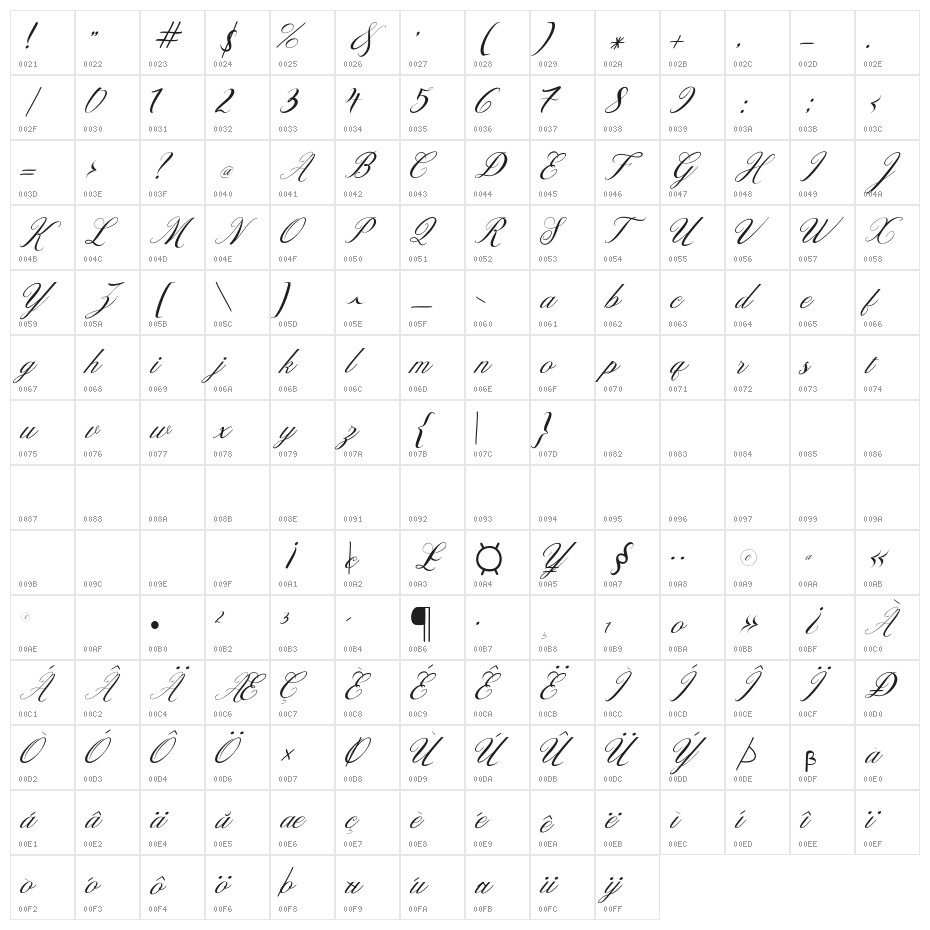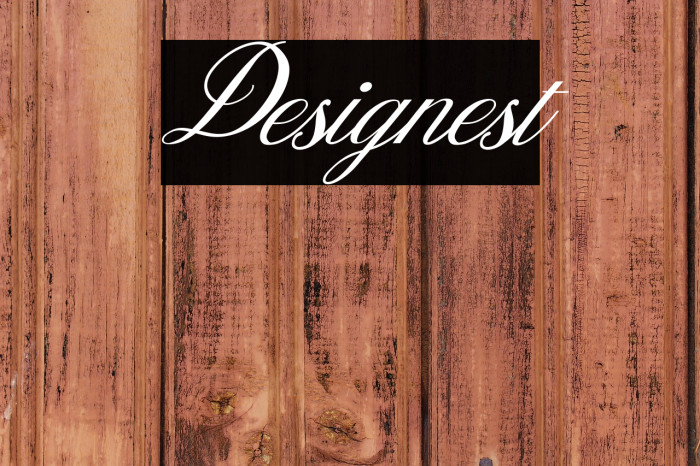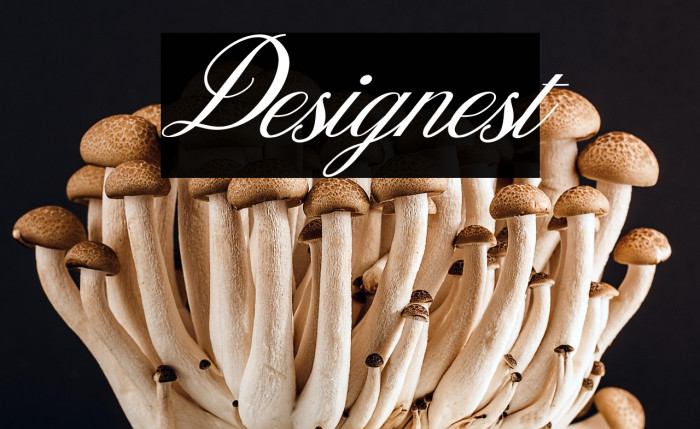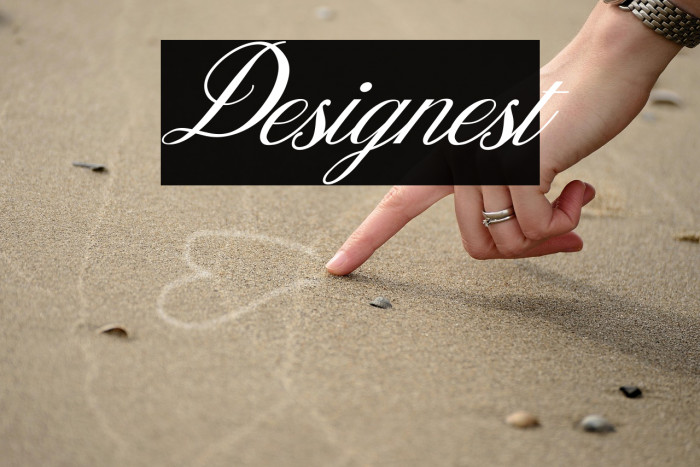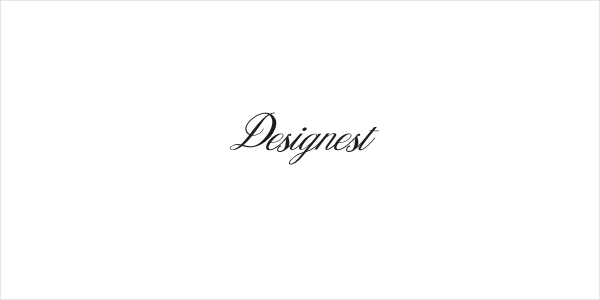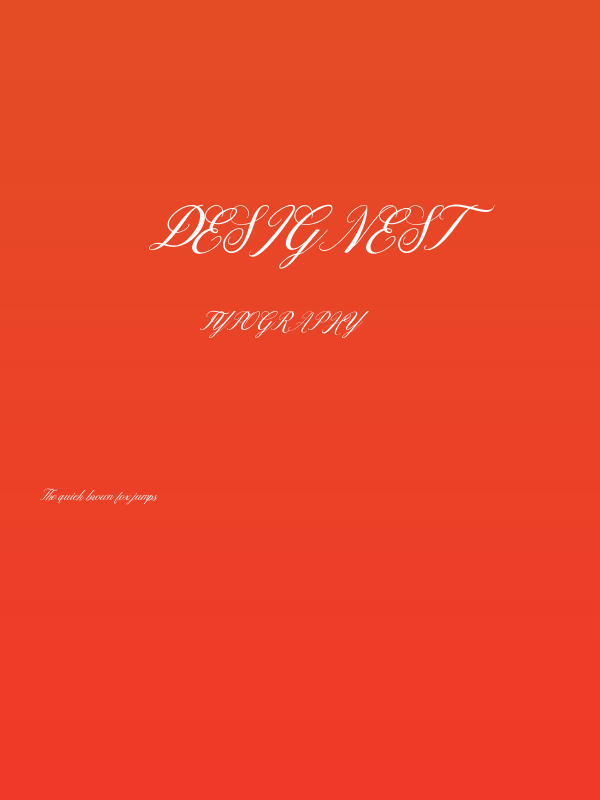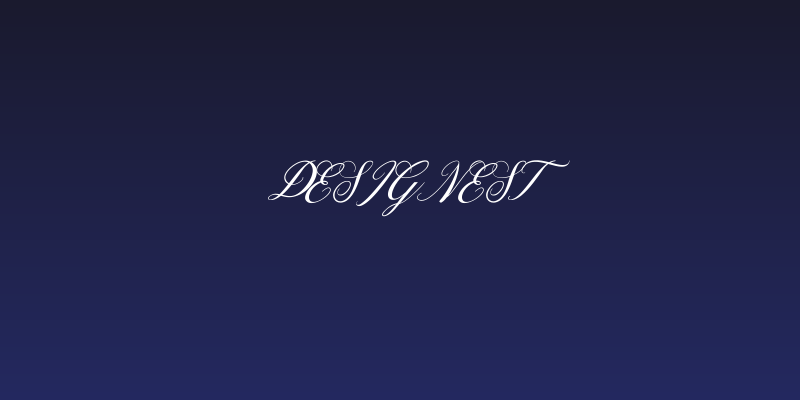
Designest Font
Designest Description
This elegant script font features flowing, cursive characters with a sophisticated flair. The uppercase letters are ornate, with intricate loops and swashes that add a touch of luxury and refinement. The lowercase letters maintain a smooth, connected style, enhancing readability while retaining the font's decorative nature. The numerals are equally stylish, with a consistent slant and graceful curves. Special characters are designed to match the overall aesthetic, providing a cohesive look across all glyphs. This font is ideal for projects that require a touch of elegance and sophistication.
| Proposed Projects | Wedding invitations, luxury branding, elegant packaging, and formal event materials. |